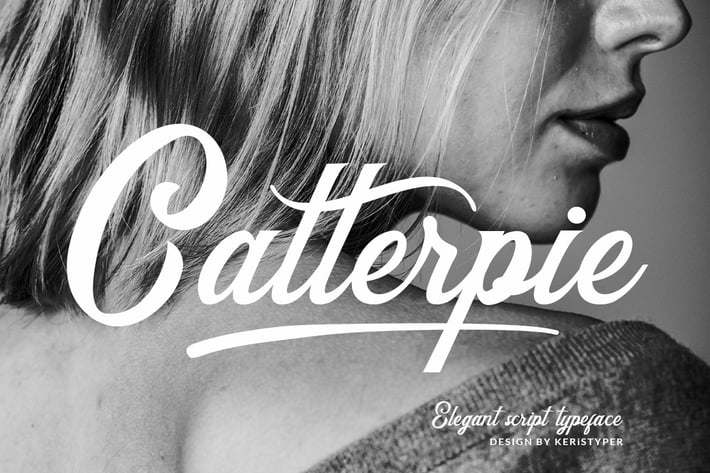
Catterpie Font
Catterpie Font is a modern classy typeface. It's a great choice for your needs, pair perfectly with another font style. Attached them on your wedding invitations, gifts, brand, logos, tagging, and even to promote your personal business.